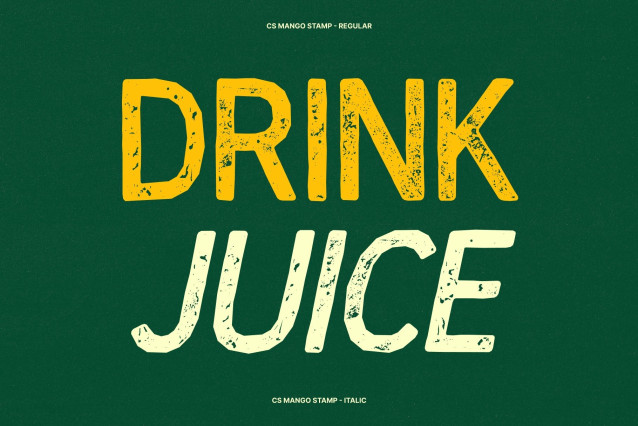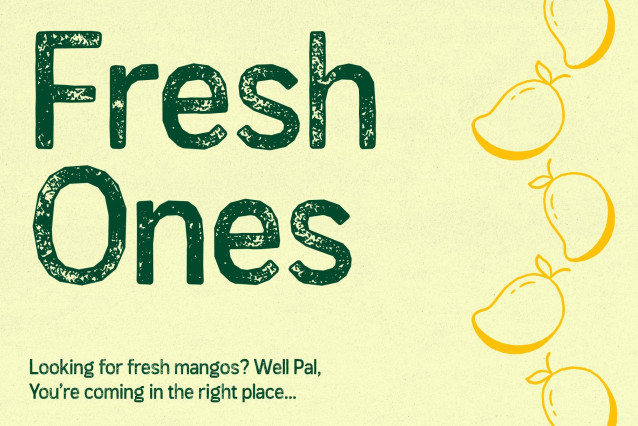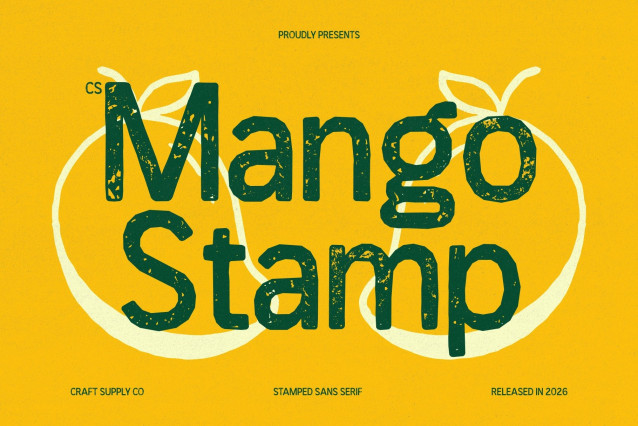
CS Mango Stamp – Display Sans Serif Font: Where Clean Strength Meets Funky Expression
Strong Shapes with Playful Attitude
This is a display sans serif font with a distinctive funky edge. Its bold construction gives each letter a solid and confident presence, while its quirky character adds a sense of fun and individuality. This balance creates a lively visual tone that feels both modern and unconventional.
Handmade Texture with Artistic Energy
Enhanced by a drawn texture and stamp effect, this font delivers a handcrafted feel that brings warmth and personality to every composition. The textured details introduce subtle imperfections, giving the font an organic and expressive quality. This artistic touch makes it stand out from typical clean sans serif fonts, adding depth and visual interest.
Dynamic Style with Unconventional Charm
This font thrives on its ability to break away from rigid design norms. Its funky style and textured finish create a dynamic rhythm that energizes layouts and captures attention instantly. Whether used in bold headlines or standout typography, it injects a sense of movement and creativity into the design.